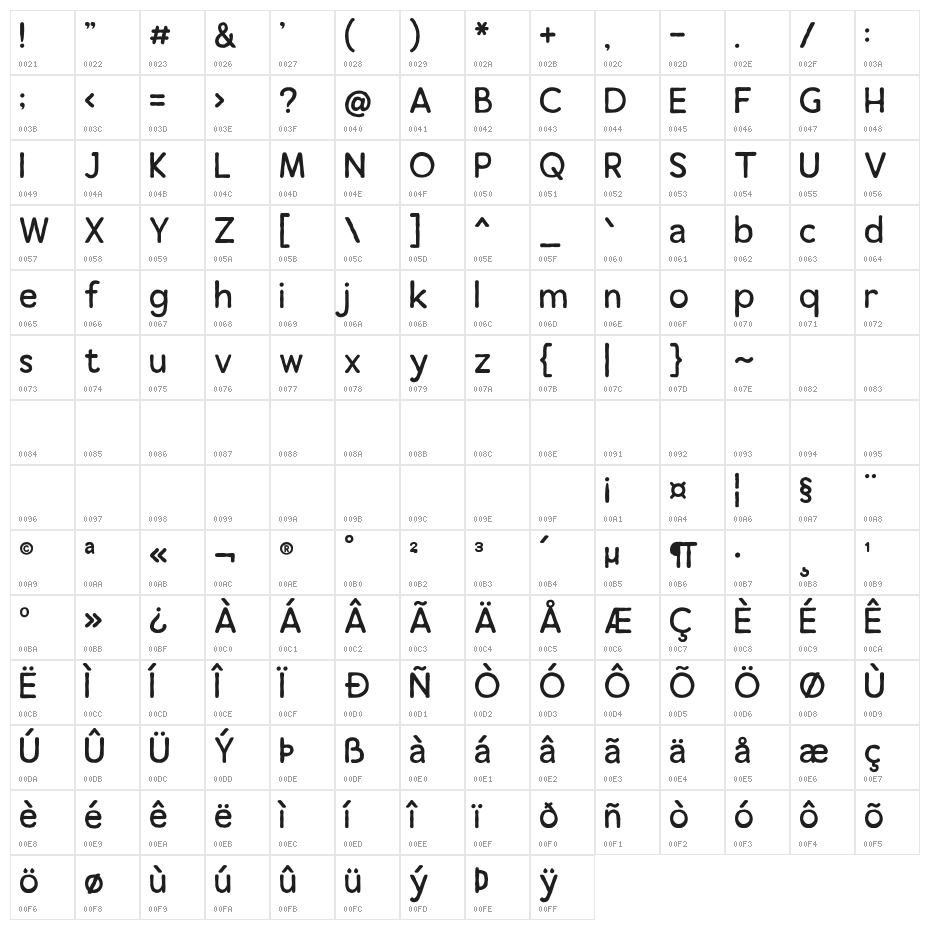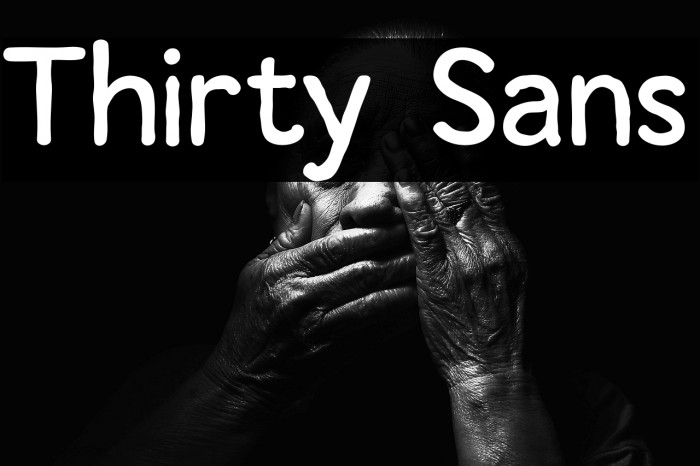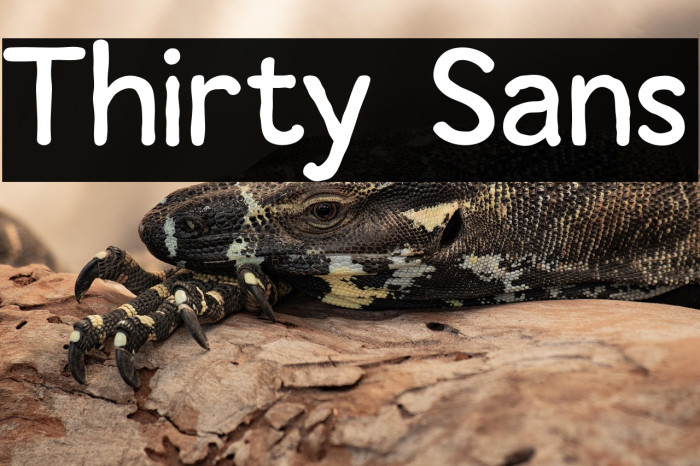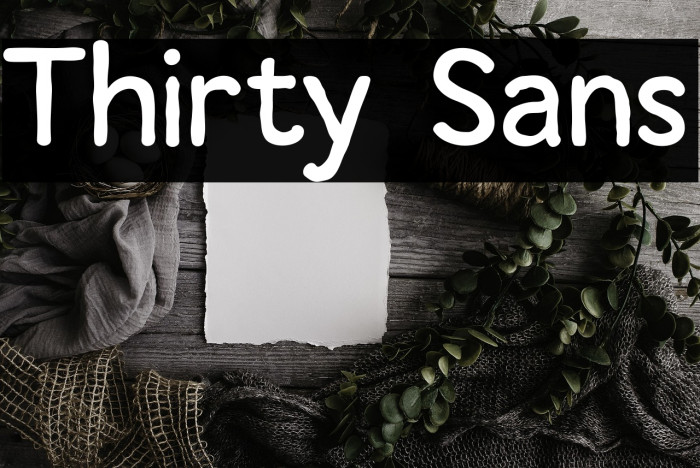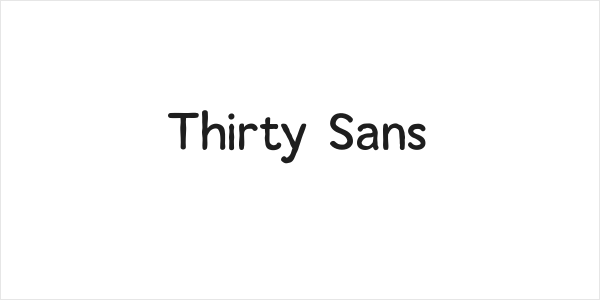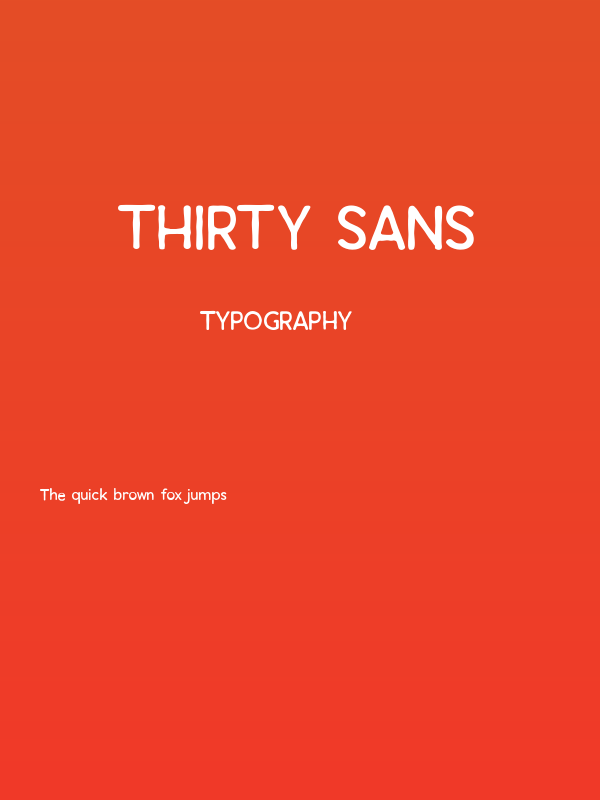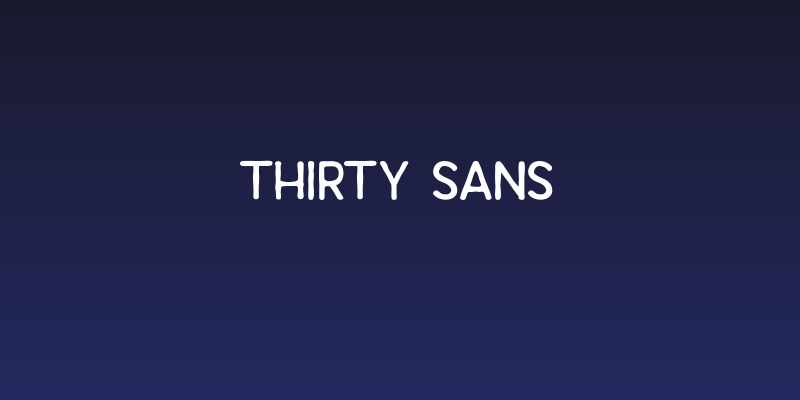
Thirty Sans Font
Thirty Sans Description
This font features a playful and informal style with rounded edges and a hand-drawn appearance. The letters are slightly irregular, giving it a casual and approachable feel. The uppercase and lowercase letters maintain a consistent style, with a uniform stroke width that adds to its readability. The numerals and special characters are designed to match the overall aesthetic, making it versatile for various uses. Its unique charm makes it suitable for creative projects that require a personal touch.
| Proposed Projects | Ideal for children's books, greeting cards, casual branding, and creative posters. |